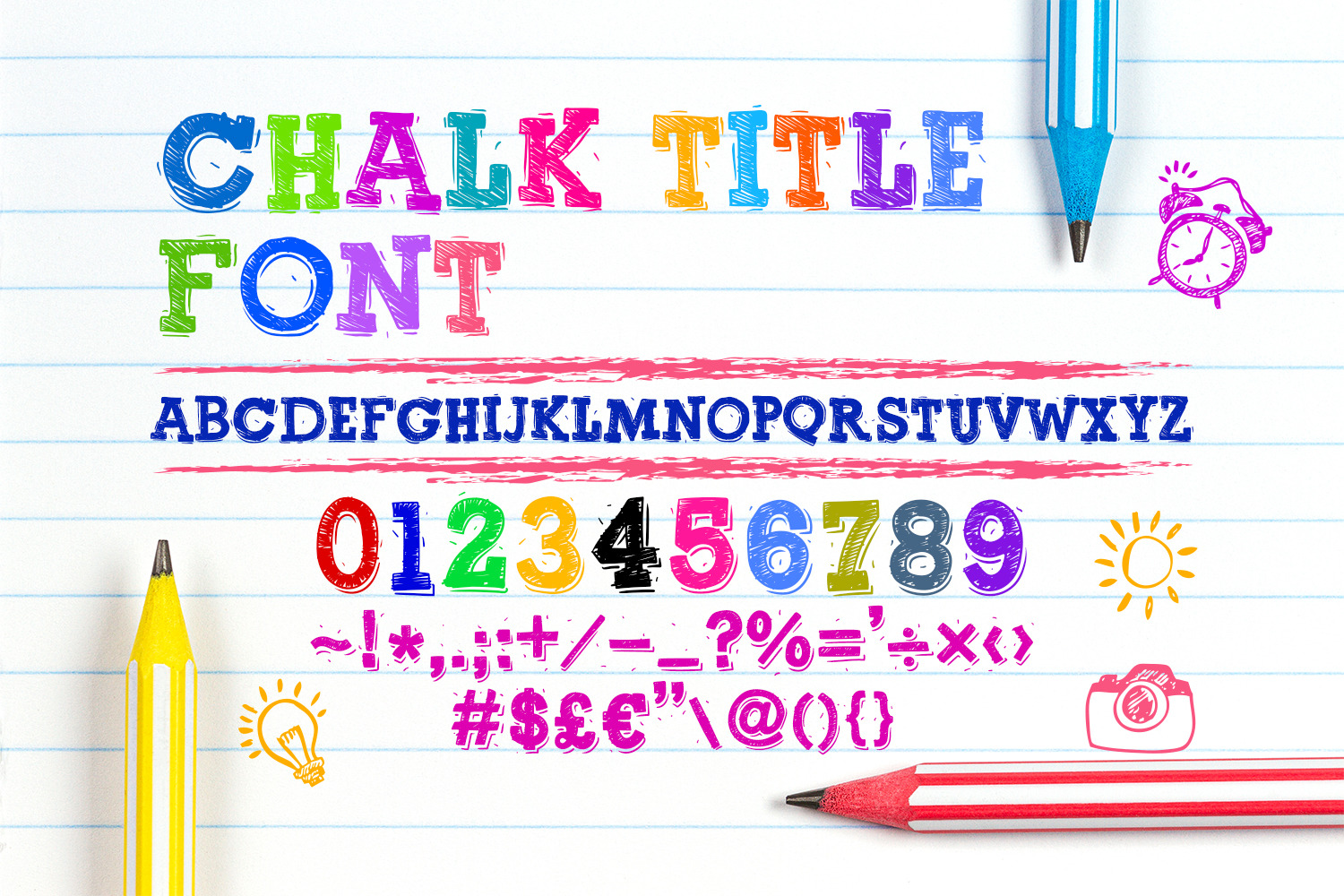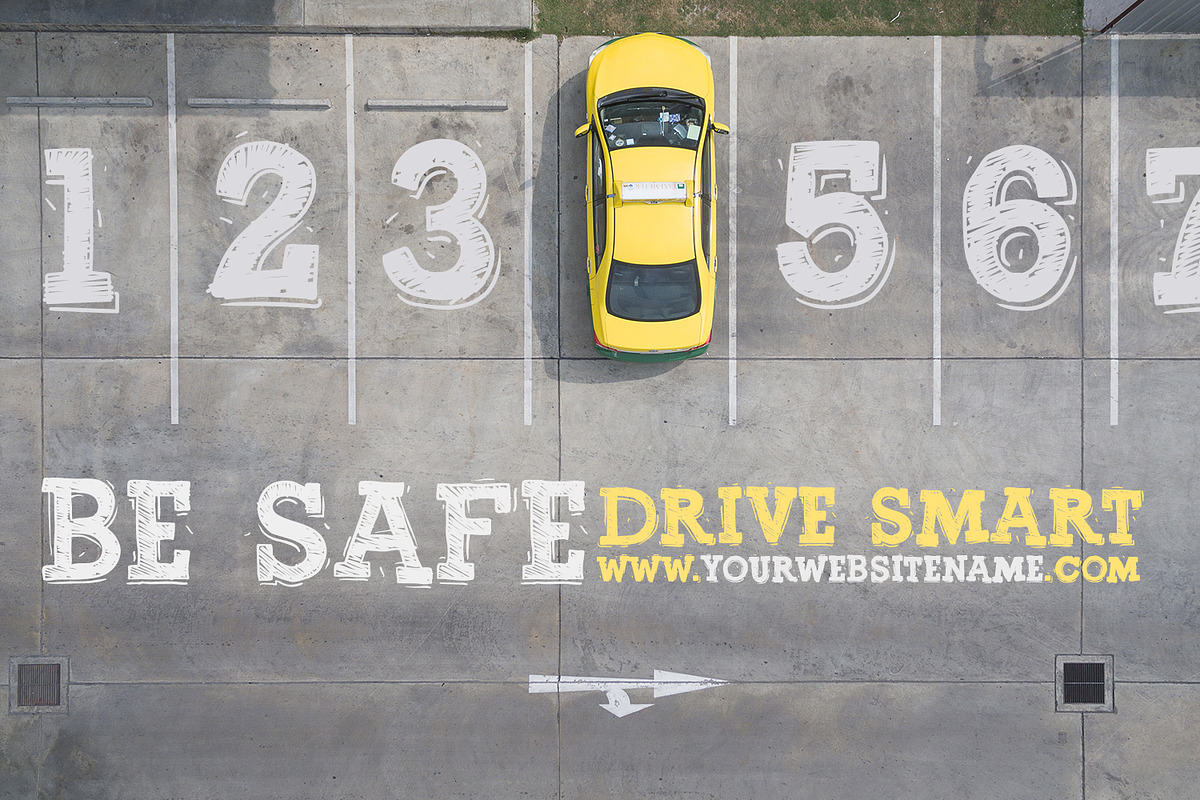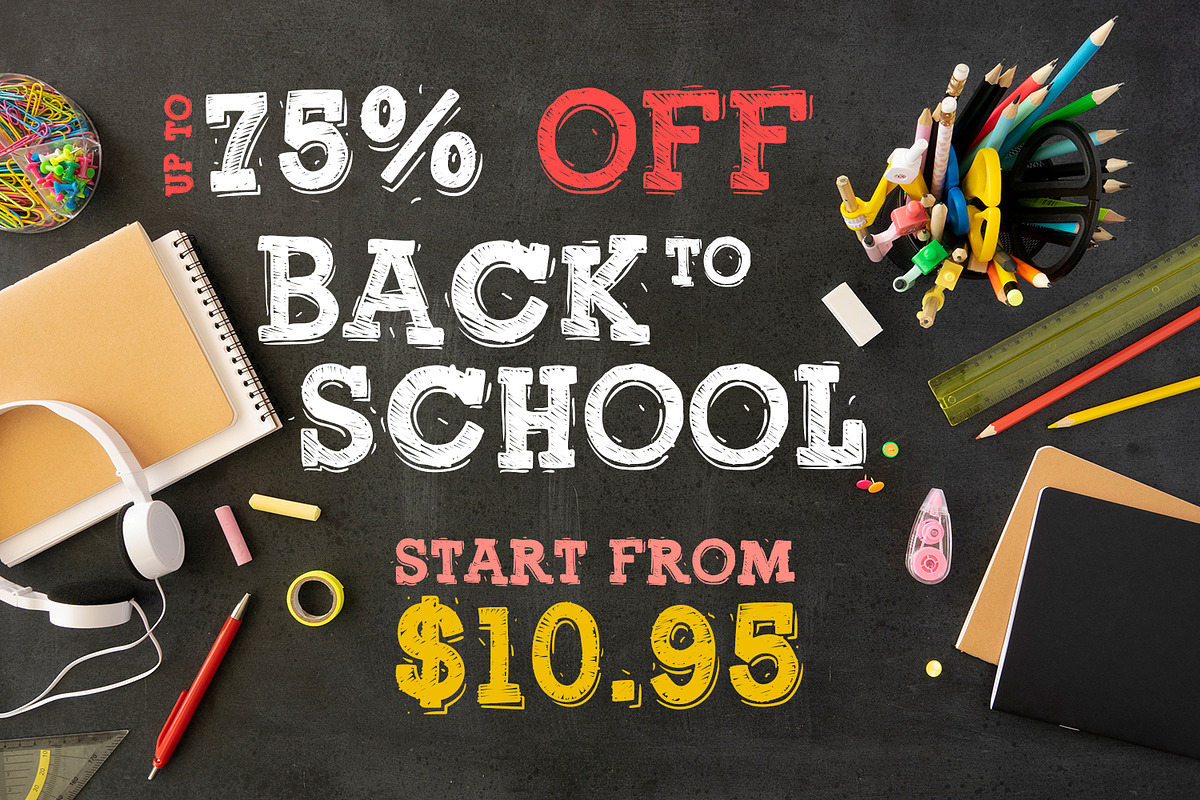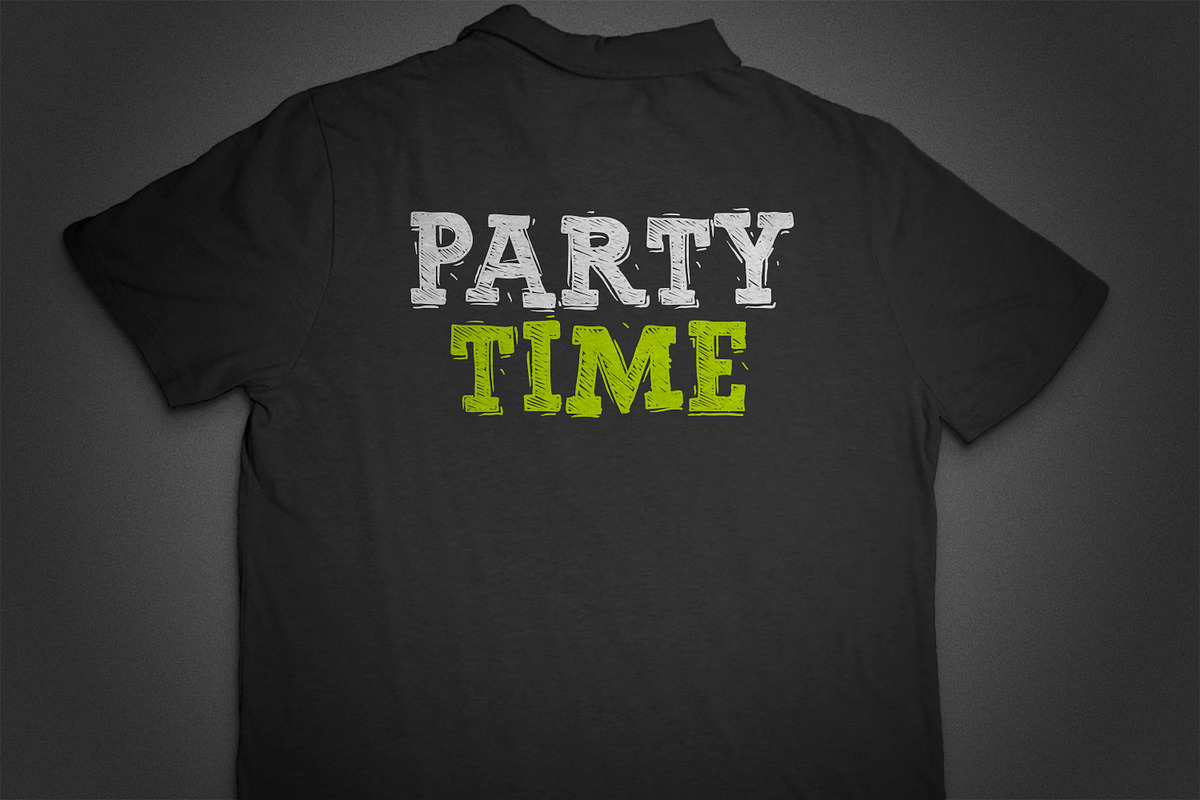
Chalk Title Font
Chalk Title is a great sketch handwritten font. It’s suitable for chalk writing and it’s the perfect font for school-themed projects.